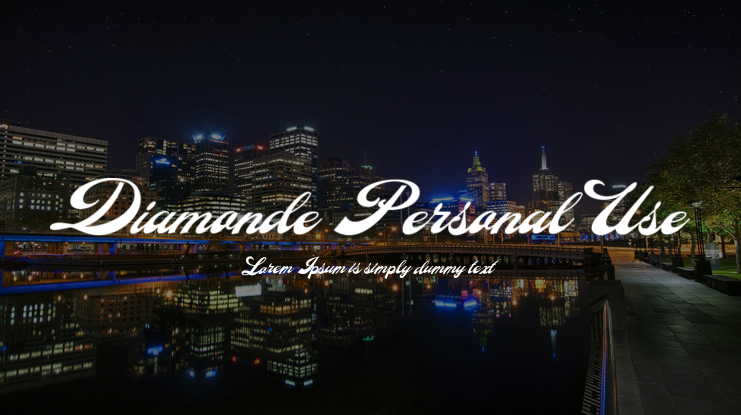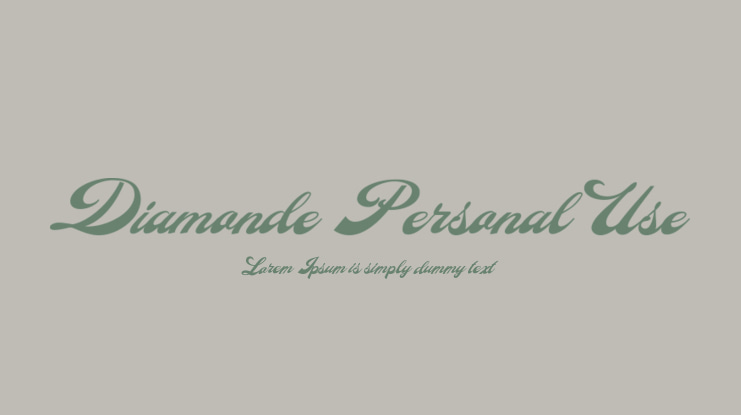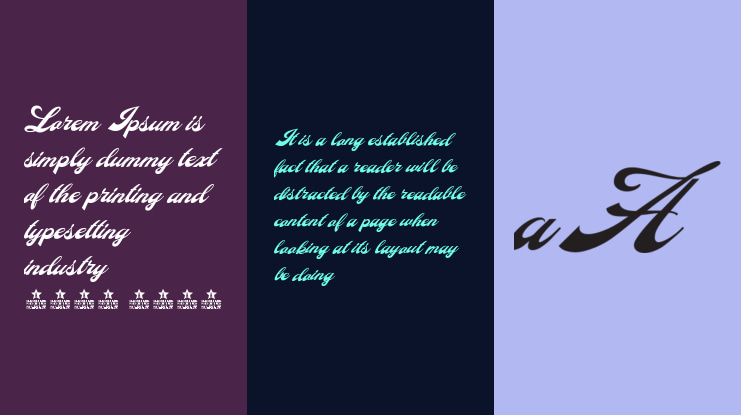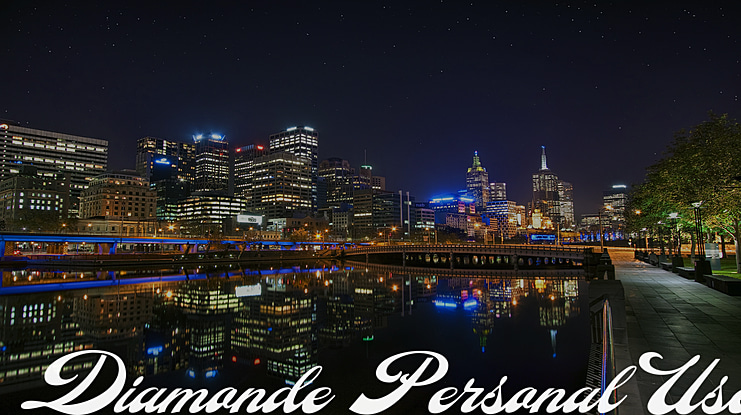
Diamonde Personal Use Font
Billy Argel
For different swashes.
Type underline + number like ( _1 ) for the swash one ( _2 ) for the swash 2 and sub consequently you will obtain 10 different swashes